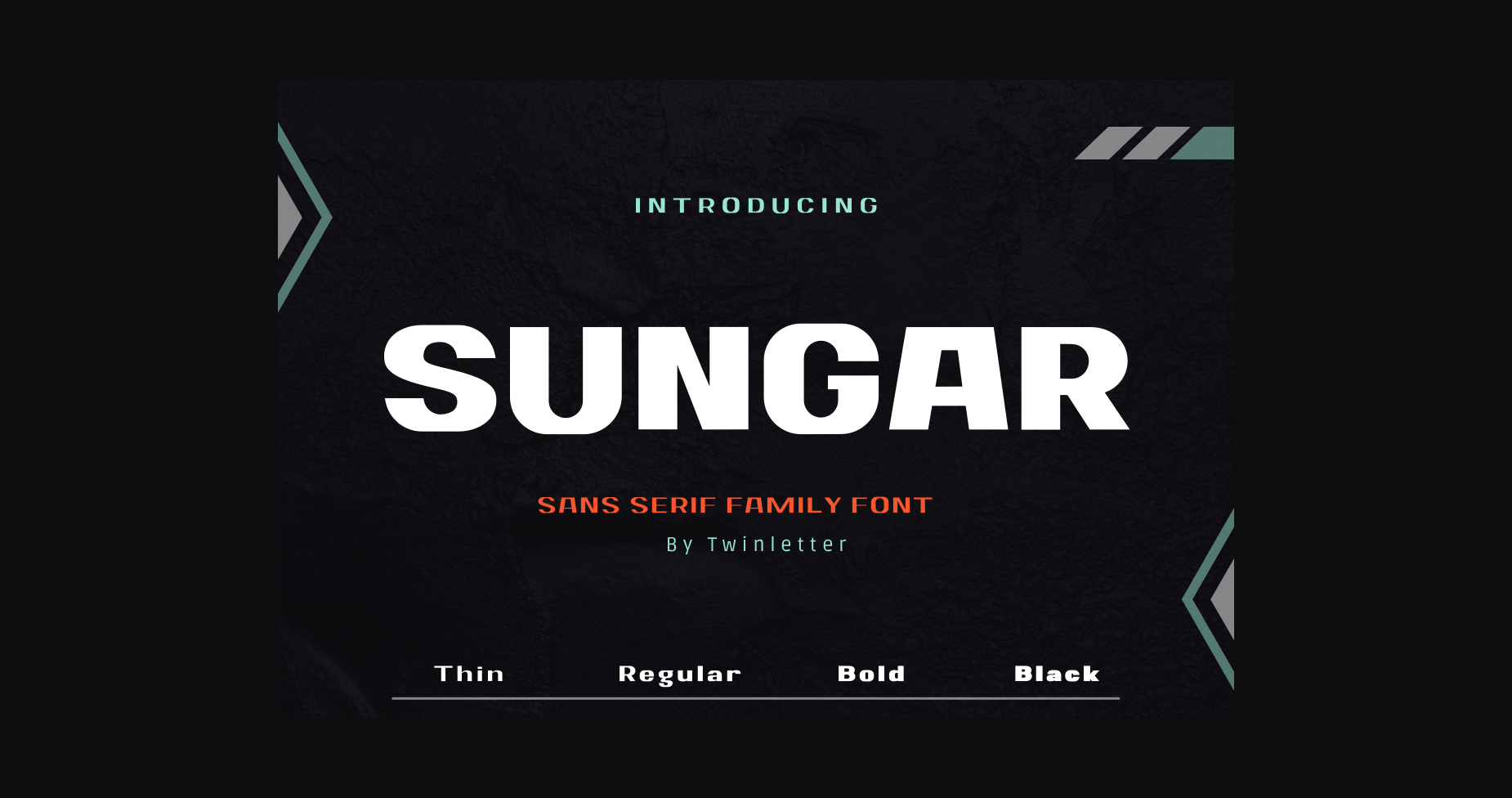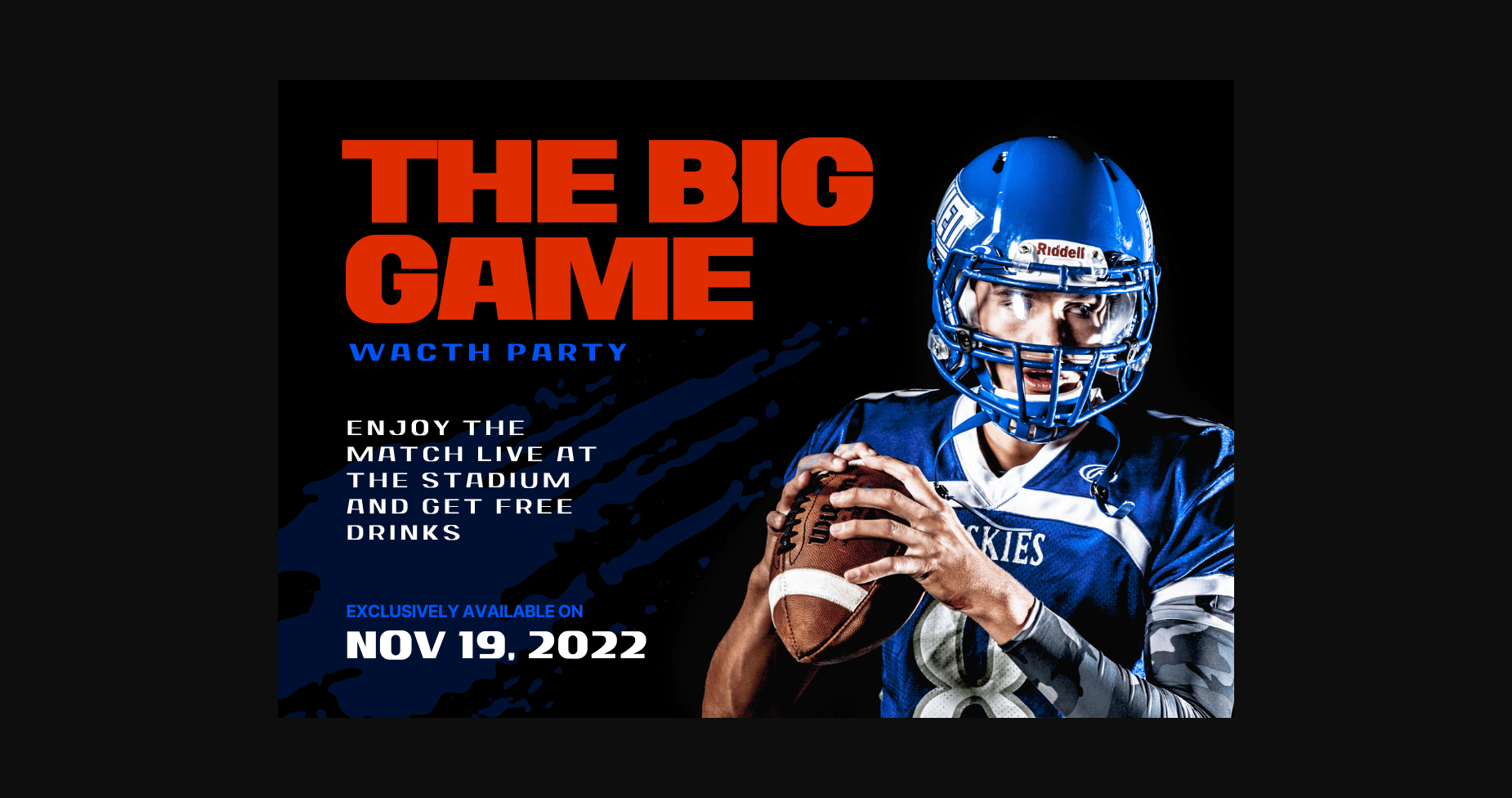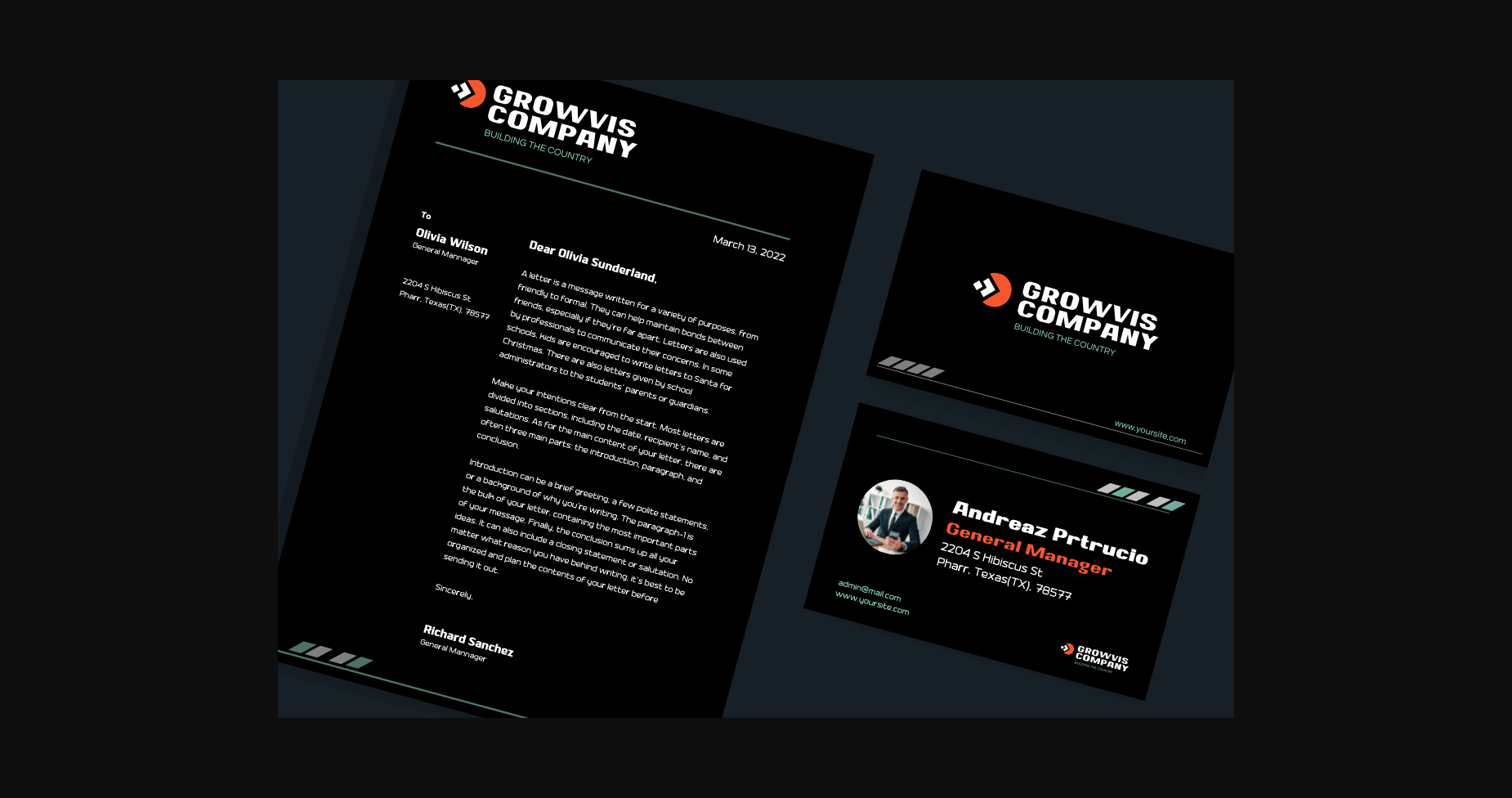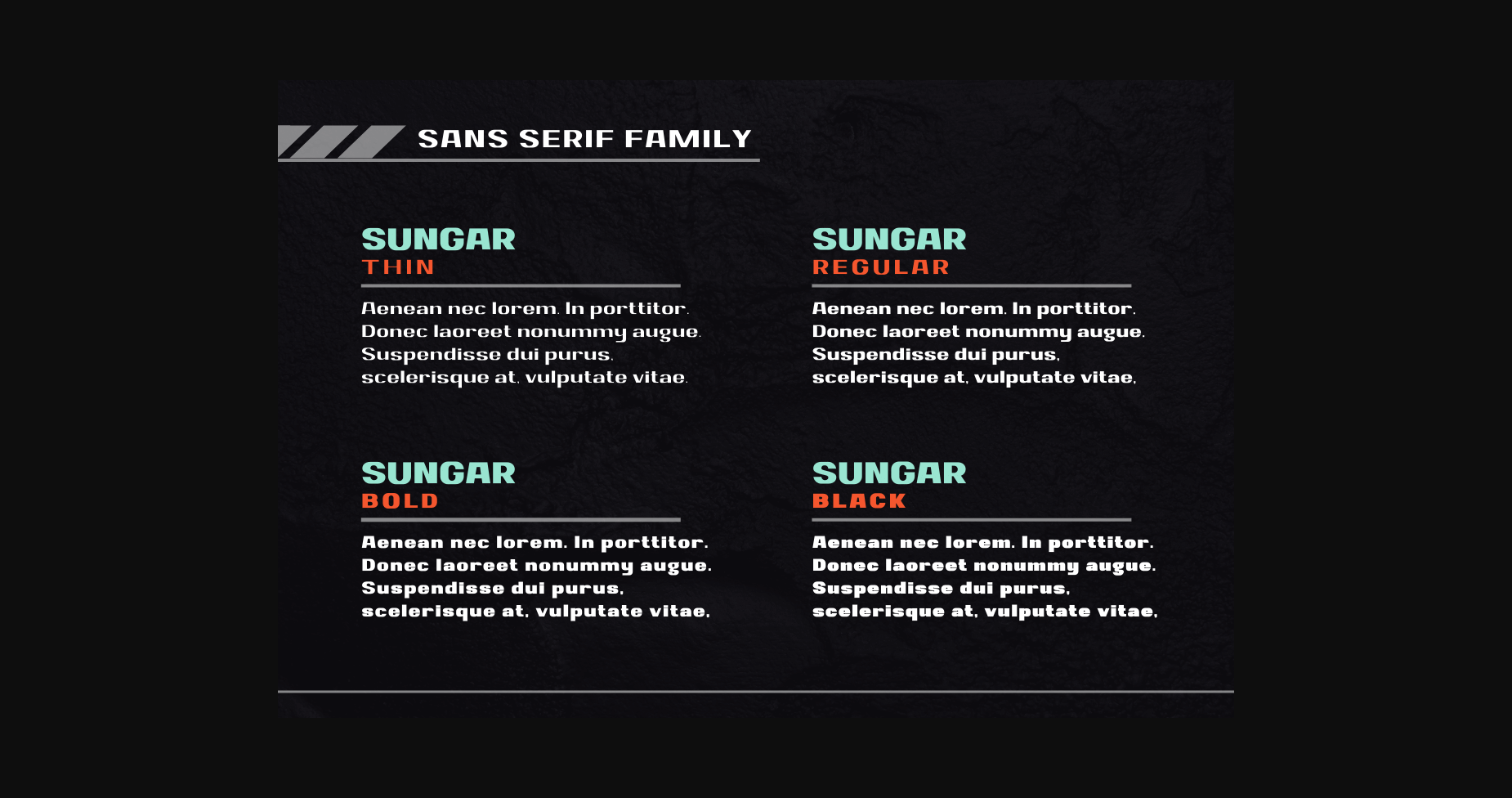
About Sungar Font
Introducing the Sungar sans serif font.
Your customers will be captivated by the unique combination of inspiration, craftsmanship, and style that comes with this new typeface. You’ll get the full power of professional design without hard work.
Your design projects will be perfect and extraordinary if you use this font because this font comes with a font family, both for titles and subtitles, and sentence text.
Your customers will be captivated by the unique combination of inspiration, craftsmanship, and style that comes with this new typeface. You’ll get the full power of professional design without hard work.
Your design projects will be perfect and extraordinary if you use this font because this font comes with a font family, both for titles and subtitles, and sentence text.